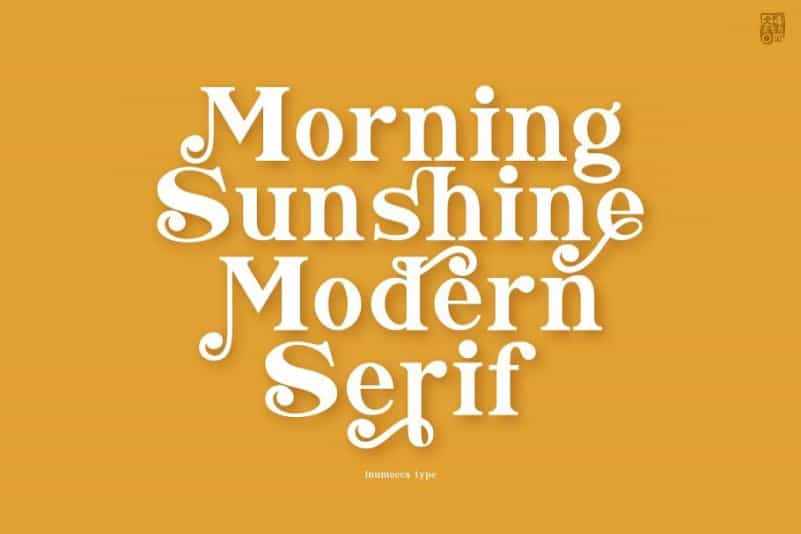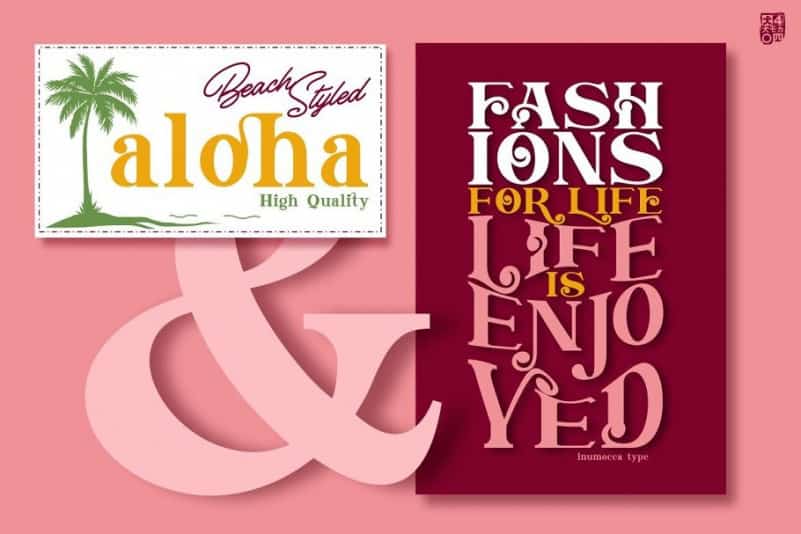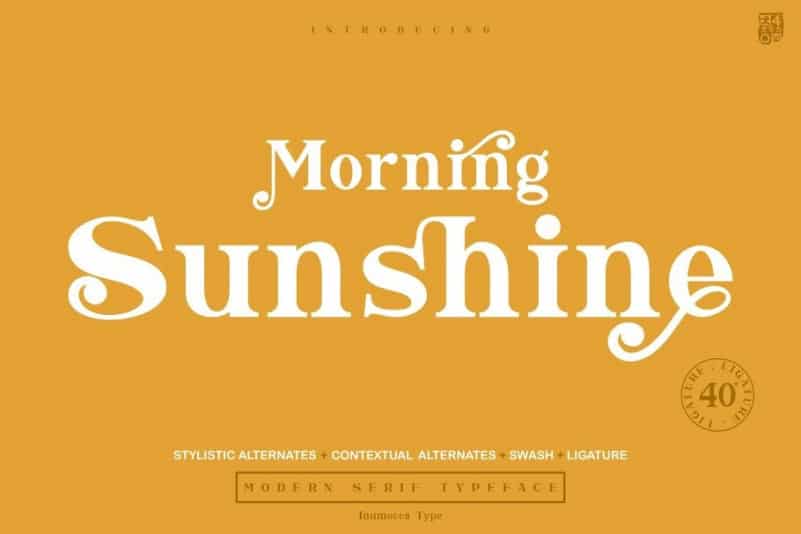
Morning Sunshine Serif Font is inspired by Classic typography and now come with modern serif nuance. Short serifs with slightly rounded corners make this font legible at small points. OpenType feature to access Ligature, contextual alternates, stylistic alternates and swash. Really playful typeface to covering your Project, like Magazine, Branding, Poster, wedding invitations, Tshirt, Logos, and more your project design.